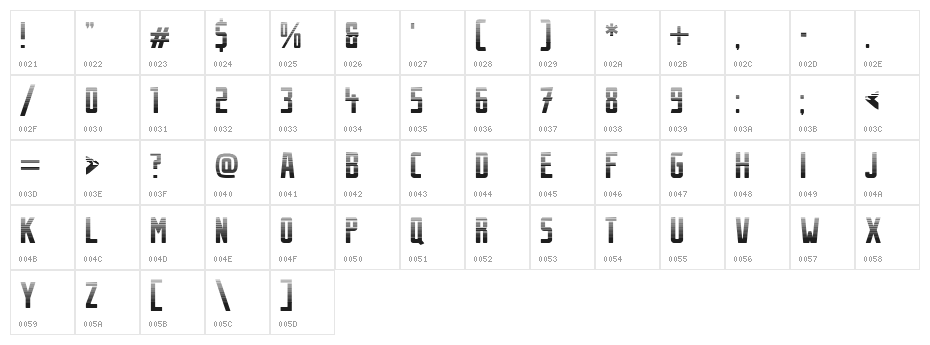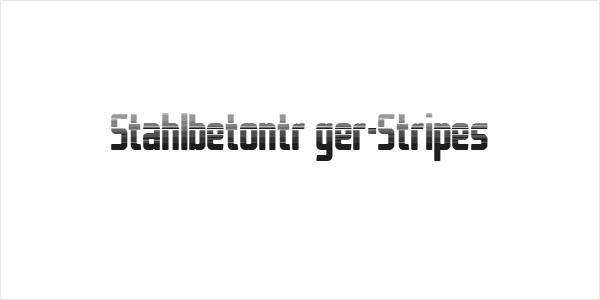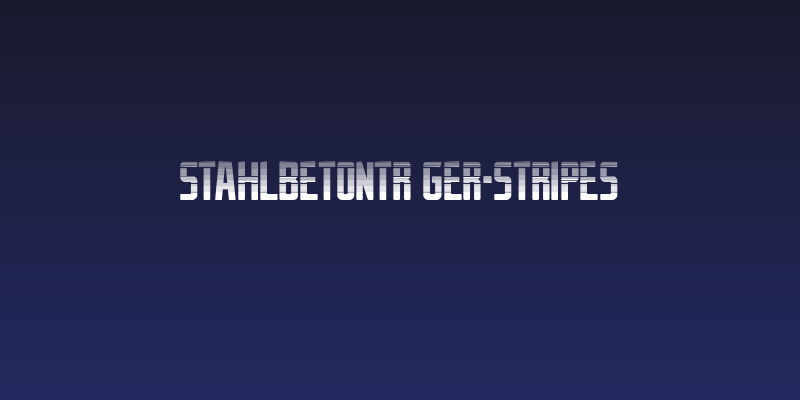
StahlbetontrŠger-Stripes Font
StahlbetontrŠger-Stripes Description
This font features a bold, modern design with a distinctive striped pattern running horizontally across each character. The uppercase and lowercase letters maintain a consistent width, giving the font a uniform appearance. The numerals and special characters follow the same design principles, ensuring a cohesive look throughout. The striped effect adds a dynamic and eye-catching element, making it suitable for projects that require a strong visual impact. The font's geometric structure and clean lines contribute to its contemporary style, while the unique pattern provides a sense of movement and energy.